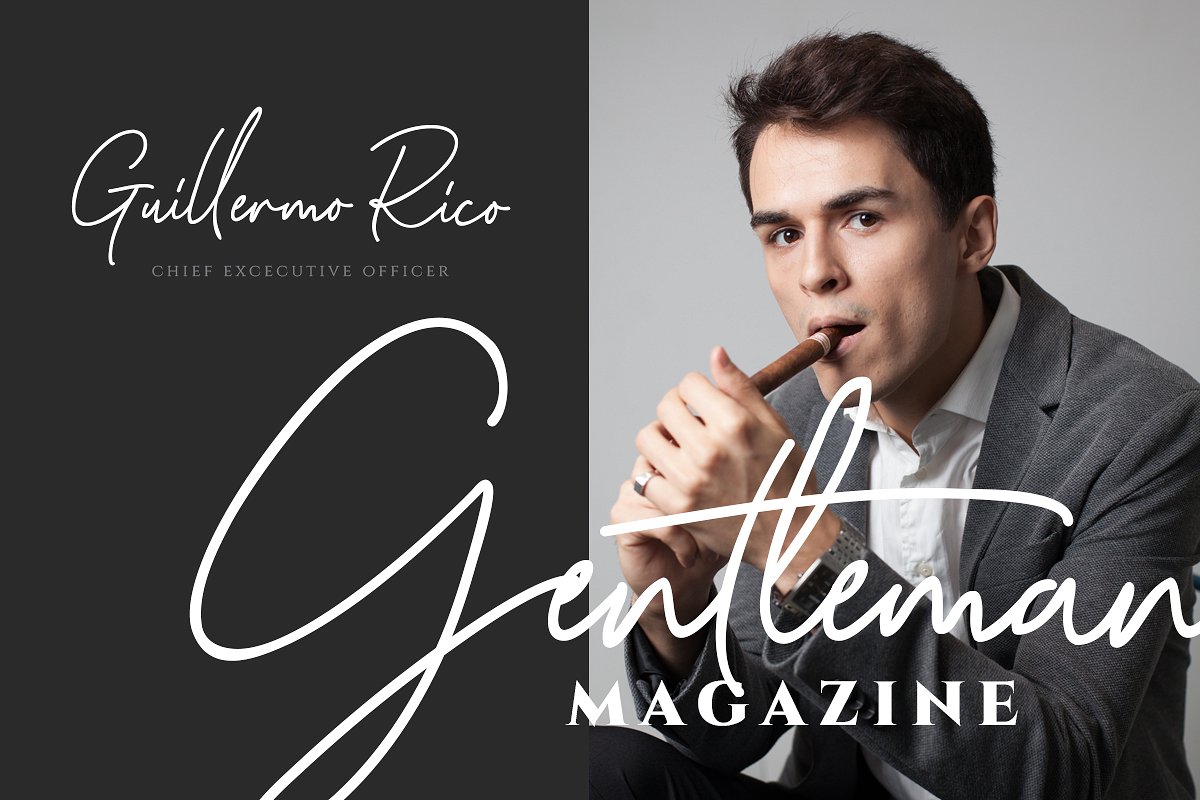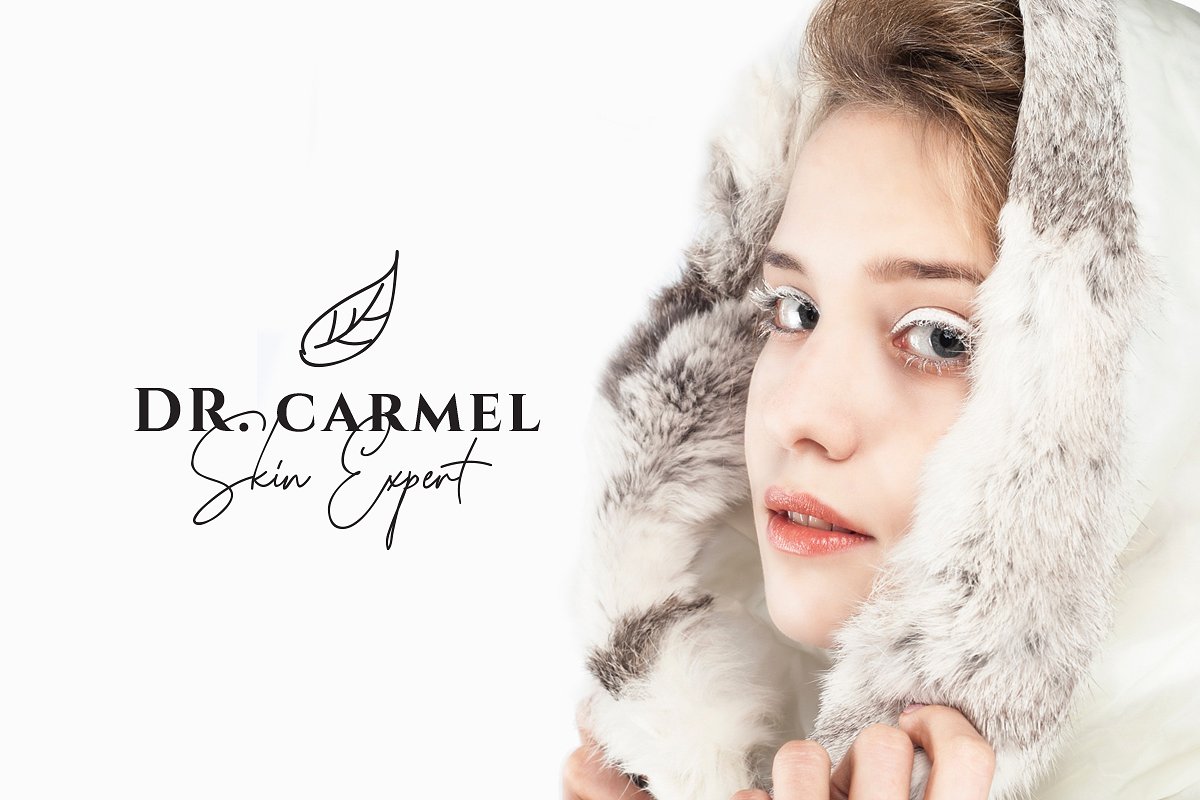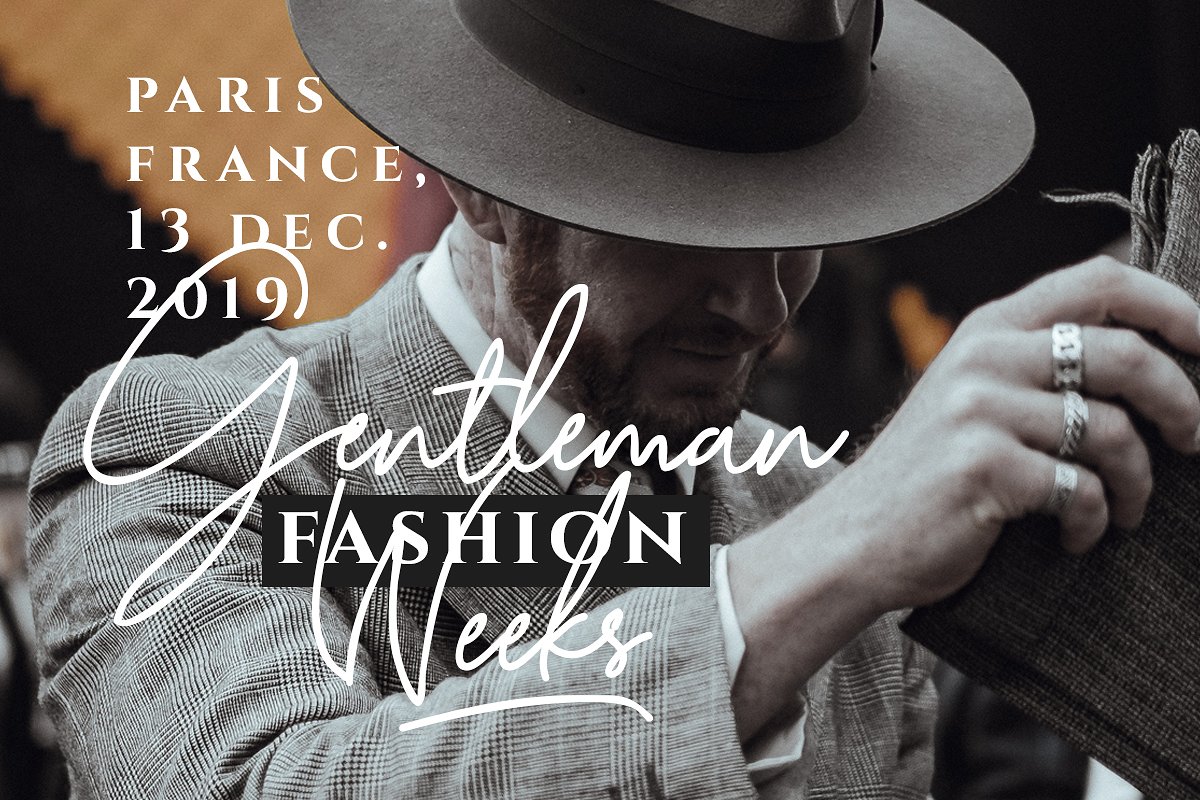
Katherine Signature Font
Katherine Signature Demo Font
Hi Ladies and Gentleman ! This is a casual and stylish signature font. This delicate, modern script font is full of romance and elegance. Introducing Katherine Font. Katherine Signature Font is an authentic signature that contain lowercase, uppercase, symbol, and also support multi language. Katherine Script also suitable for logo branding, beautiful fashion design, suitable for wedding invitation, or handwritten quote.